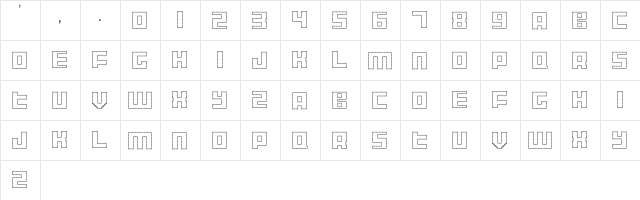
Display Gothic H Regular
| Designer | Wolf Lambert |
Design Context for Display Gothic H Typeface
Display Gothic H brings ornamental detail and strong personality to headlines and identities, where visual impact matters more than quiet functionality.
Font Pairing: Pair with a clean neutral sans-serif for body copy to let Display Gothic H's character lead without overwhelming the composition.
Pro Tip: Treat Display Gothic H as the centrepiece of your typographic hierarchy. One strong heading set in a decorative face can carry an entire layout.